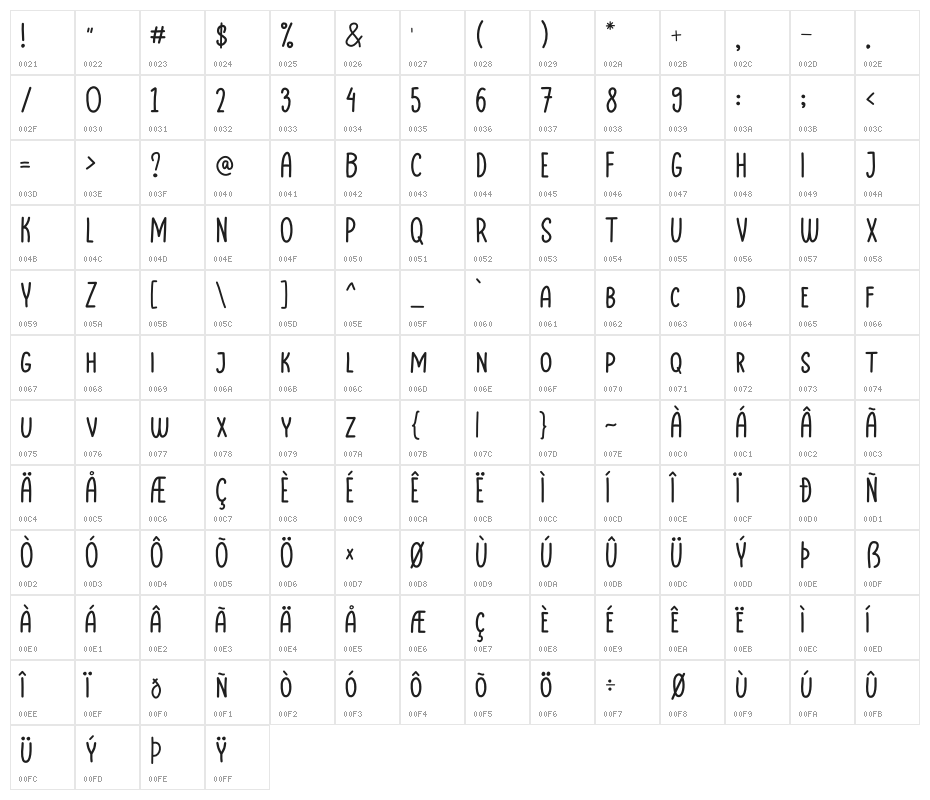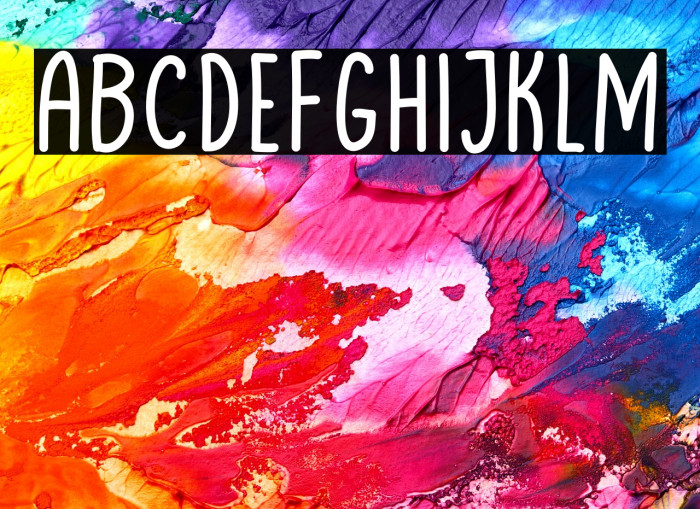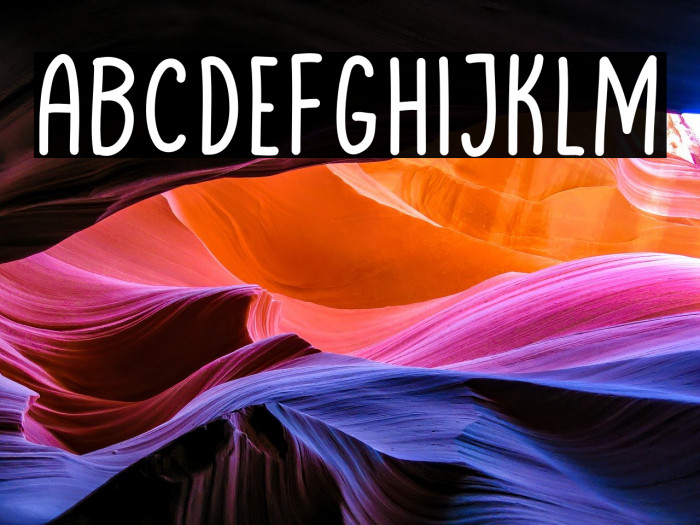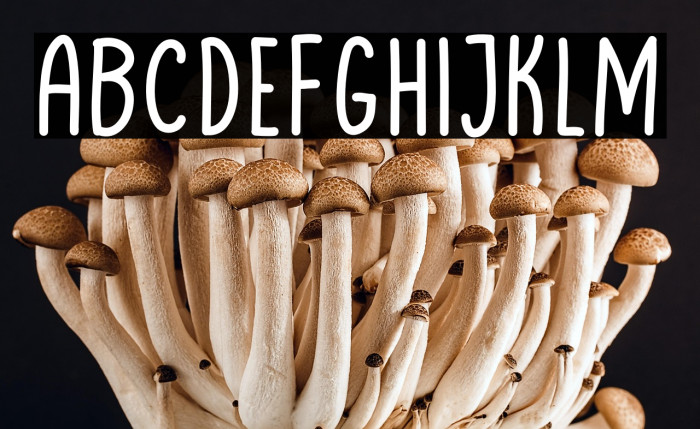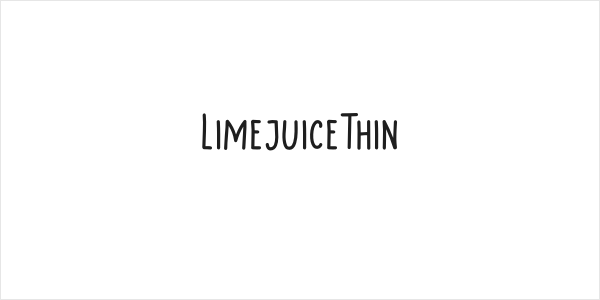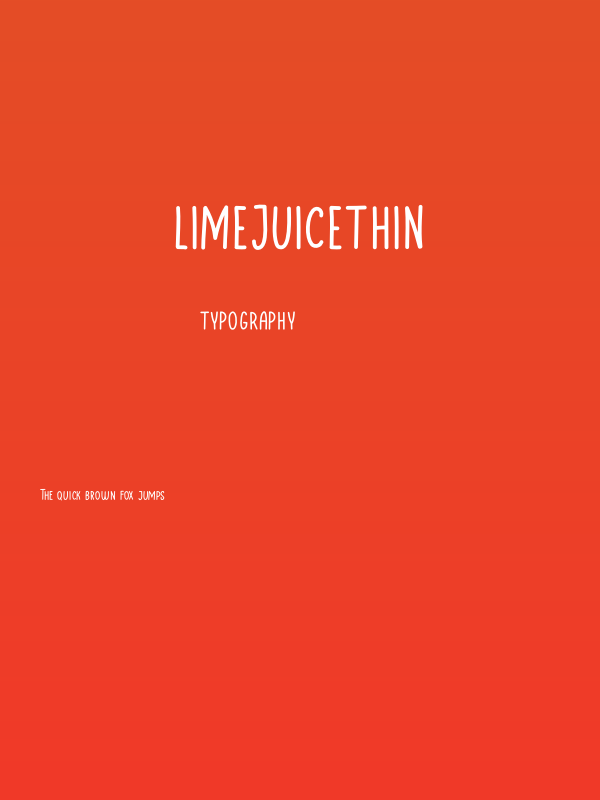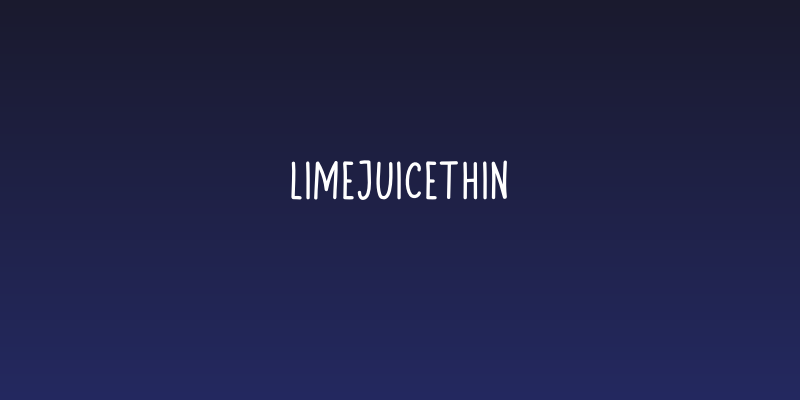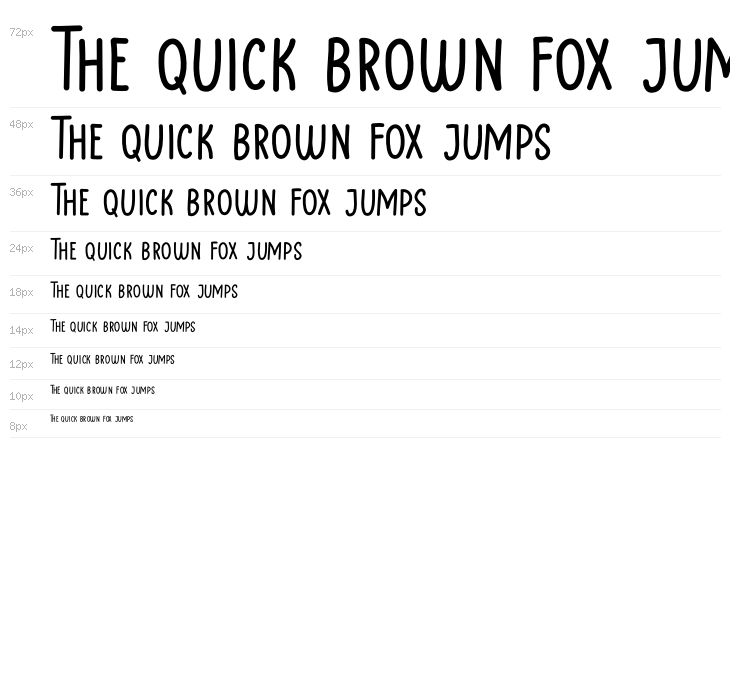
LimejuiceThin Font
LimejuiceThin Description
This font features a playful and casual handwritten style with smooth, rounded edges and a slightly irregular baseline, giving it a friendly and approachable appearance. The characters are evenly spaced, maintaining a consistent flow throughout the text. The uppercase and lowercase letters are distinct yet harmonize well together, while the numerals and special characters retain the same whimsical quality. This font's simplicity and charm make it versatile for various design projects.
| Use Case | Headlines, Logos, Social media graphics |
| Proposed Projects | Ideal for children's books, greeting cards, casual branding, and social media graphics. |